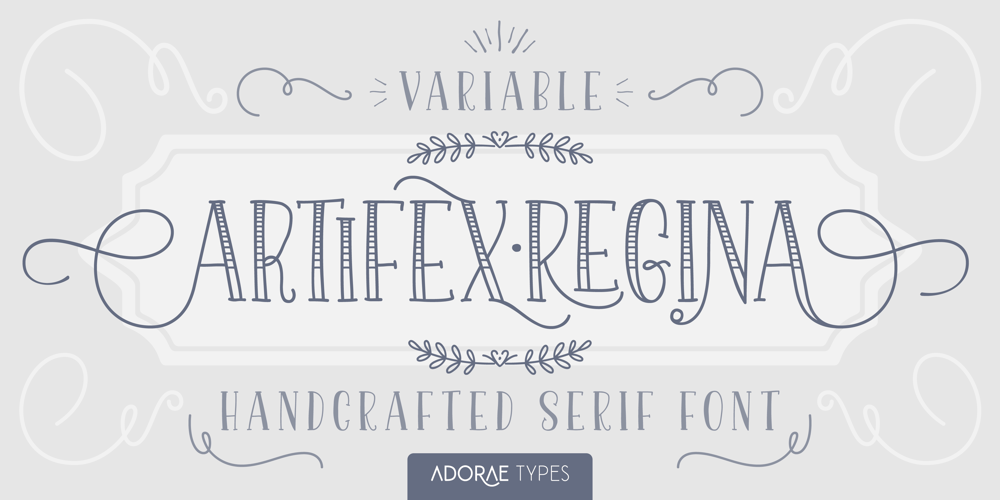
Artifex Regina Font Family was designed by Emilia Adorno and published by Adorae Types. Artifex Regina contains 8 styles and family package options. Created for designs that require a handcrafted and handwritten look with a majestic touch. Artifex Regina is a blend of fantasy, wizardry, and charming delight. What’s even better? IT’S VARIABLE! Designed to be a fun variable font, it allows Artifex Regina to be used as an animated typography adding a hint of magic through styles & transitions. Need a brighter inline? Need a softer shade? We got you! As an extra feature, you might want to try and play with its sliders and navigate throughout its 2 axes plus a swirly style handler to get a fully customized style!FEATURES: · Alternates: With an easy access at hand and through various stylistic sets that may contain many or a few alternates, leaving the choice to the designer for the right combination of sets and alternate characters. This includes a set of swirly ends available for static fonts as well as an axis for the variable font. · Contextual alternates: a few characters that provide some variety when used together. · Ligatures: Common used connectors with a playful twist. · Swashes: Accesible through OpenType Swashes feature there’s a set of initial, final and middle swashes with passionate, elegant, and expressive strokes. Also, through stylistic sets, there’s a set of monoline swashes for a cleaner look or limited spaces.